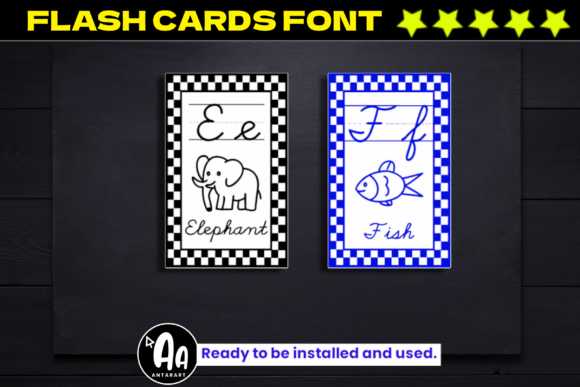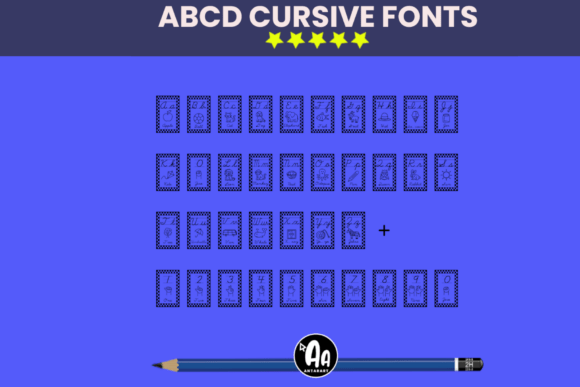
Unlocking the Joy of Cursive Writing: A Creative Approach to Alphabet Learning
Remember the excitement of holding a pencil and scribbling out your first cursive letter? For many of us, the experience of learning to write in cursive is a cherished memory that brings back a sense of wonder and creativity. Today, we’re excited to share a tool that can help bring that same joy to children as they learn the alphabet and develop essential writing skills.
Introducing the Cursive Handwriting Flashcards Checkered Font – a set of engaging, educational flashcards designed to make learning cursive a fun and effective experience. These cards feature uppercase letters, lowercase letters, and numbers in cursive, paired with matching vocabulary words and illustrations to help children build phonics and letter recognition skills. Whether you’re a teacher, parent, or homeschooler, these flashcards are a valuable resource for anyone looking to help children develop their writing skills.
Cursive Handwriting Flashcards Checkered Font Key Features
- Font Size and Resolution: The font is designed to be scalable, with a resolution of 300 DPI, making it suitable for printing and digital use.
- Unique Cursive Script: Features a beautiful, handwritten cursive script with a checkered design, perfect for creating visually appealing flashcards.
- Checkered Pattern: The font includes a unique checkered pattern that adds an extra layer of visual interest to the cursive script.
- High-Quality Graphics: The font is designed with high-quality graphics, ensuring that the checkered pattern and cursive script remain clear and legible.
- Customizable: The font can be customized to fit your specific needs, allowing you to adjust the size, color, and style to suit your preferences.
Cursive Handwriting Flashcards Checkered Font Review
Overall, I think the Cursive Handwriting Flashcards Checkered Font is a great resource for those looking to improve their handwriting skills. ✨ The font itself is beautiful and easy to read, making it perfect for flashcards or any other type of writing exercise.
Here are some of the things that I think work well:
- ✨ Beautiful and unique checkered design that adds a touch of personality to your flashcards.
- ✨ Easy to read font that is perfect for handwriting practice.
- ⚠️ Limited character set, which may not be ideal for those who need to practice writing longer texts.
- ⚠️ Not as many font sizes and styles available as some other fonts.
- ⚠️ May not be suitable for those who need a more formal or professional font.
Overall, I think the Cursive Handwriting Flashcards Checkered Font is a great choice for those looking for a fun and unique way to practice their handwriting skills. While it may not be perfect for every use case, it’s a great value and a beautiful font that I would highly recommend.
Use the Cursive Handwriting Flashcards Checkered Font for:
1. Educational materials: Flashcards, worksheets, and study guides.
2. Marketing materials: Posters, flyers, and social media graphics.
3. Personal projects: Handwritten-style invitations, journaling, and art projects.
Alternatives to Cursive Handwriting Flashcards Checkered Font
The Lobster Font is a casual, cursive font that is perfect for adding a touch of personality to designs. It’s ideal for use in headings, titles, and other text elements where a handwritten feel is desired. Compared to Cursive Handwriting Flashcards Checkered Font, Lobster Font has a more uniform and flowing style, making it suitable for a wider range of applications.